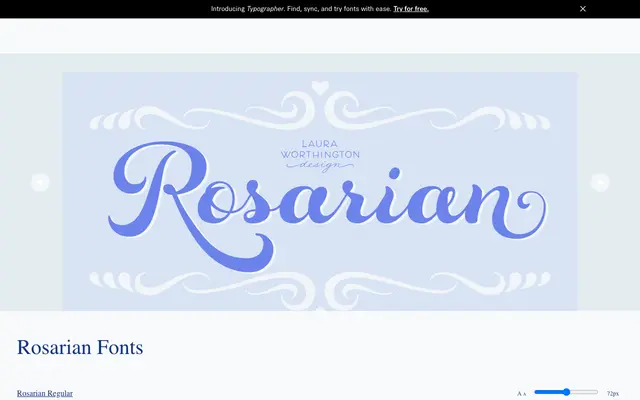
Rosarian
A pointed brush script in two weights with extensive OpenType features designed to simulate hand-lettered variation.
Built on the rhythm of the pointed brush, Rosarian moves between thick rounded downstrokes and thin hairlines to produce a fluid, calligraphic feel. Contextual alternates shift letterforms automatically to avoid repetition, while multiple stylistic sets, swashes and unconnected alternates let the script shift between formal and casual registers. The family has been coded so that alternates and ornaments are accessible without specialist design software.
Rosarian is a connected script derived from pointed brush lettering, characterised by thick downstrokes and thin hairlines typical of the pointed brush tradition.